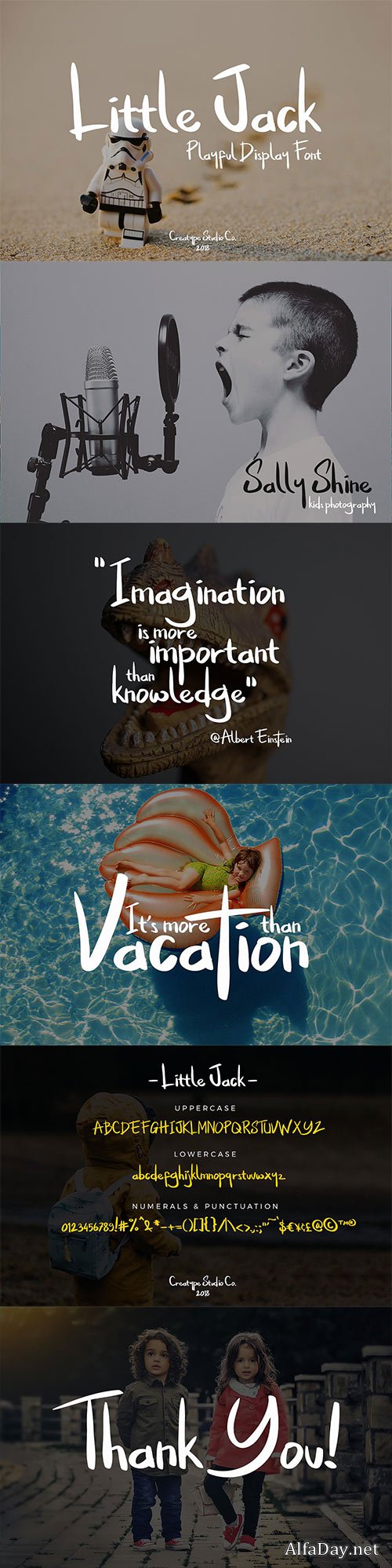
Meet Little Jack, a fun mixed case font that gives the feeling of 'jotting' something down real fast! This is hand-drawn fonts truly give off a real personal touch to your projects.